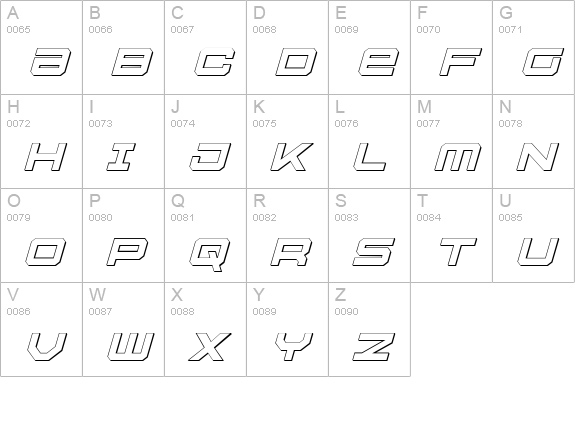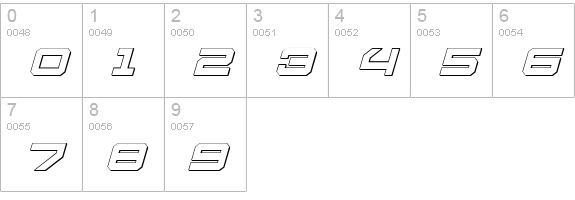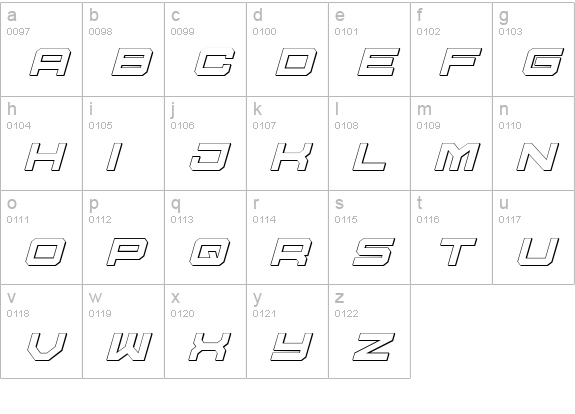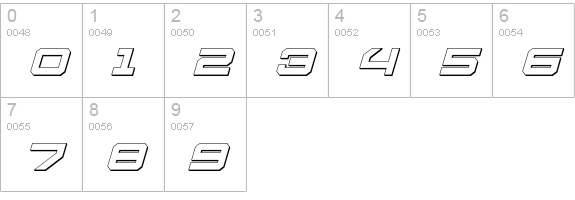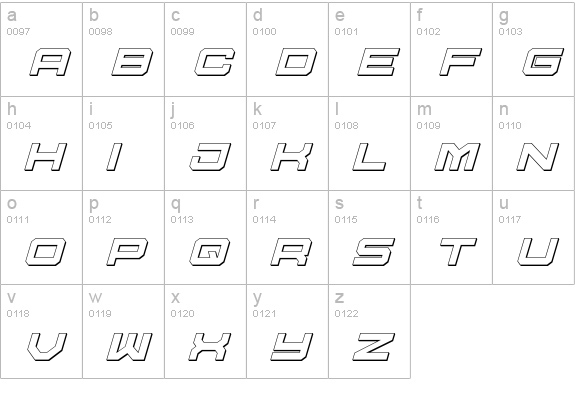
U.S.S. Dallas Outline Italic is a distinctive, italic variant in the U.S.S. typeface family \xE2\x80\x94 well suited to design and typography projects.
U.S.S. Dallas Outline Italic font is a sleek and modern typeface that exudes sophistication and style. With its bold outlines and italicized design, this font is perfect for adding a touch of elegance to any project. Whether you are creating a logo, poster, or website design, U.S.S. Dallas Outline Italic font will make your text stand out and command attention. The best part? This stunning font is available for free download at FontsMarket.com. Don't miss out on the opportunity to enhance your designs with this eye-catching and versatile typeface. Download U.S.S. Dallas Outline Italic font today and take your projects to the next level!